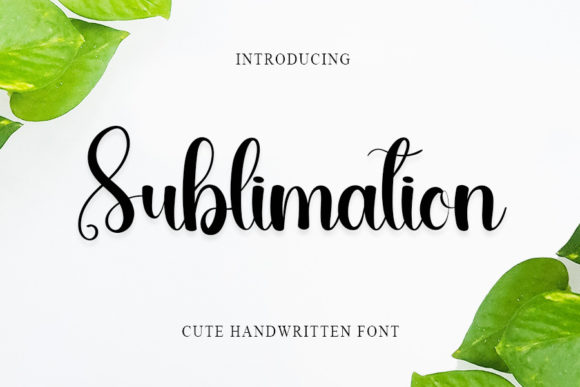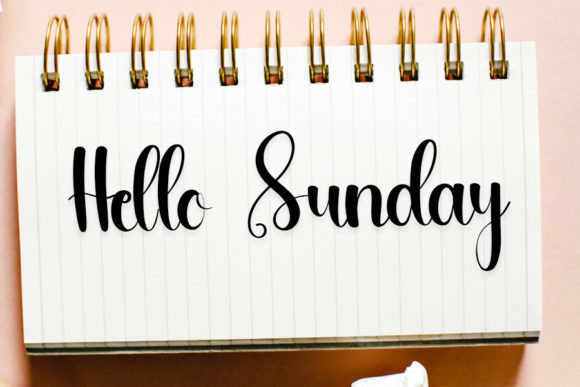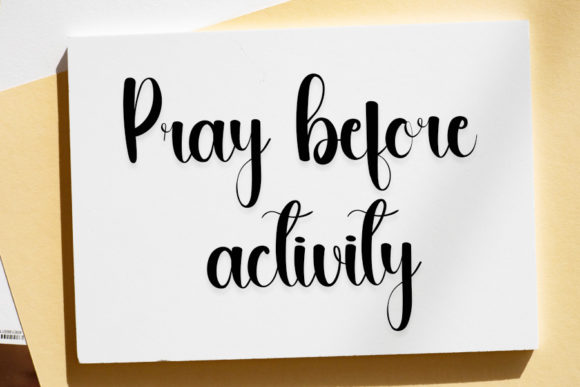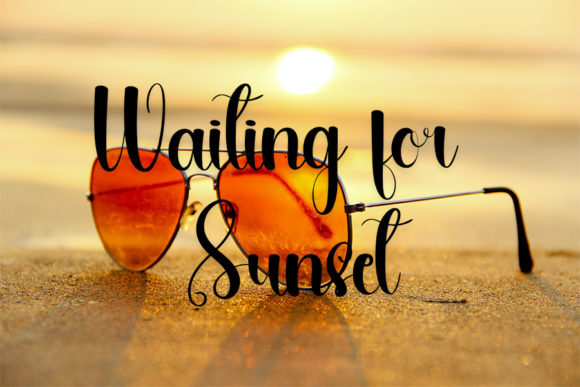
About Sublimation Font
Sublimation is a delicate and well-rounded handwritten font, perfect for crafty projects that need authentic typography! Use it for wedding invitations, birthday cards, personal branding, elegant logos, or more.